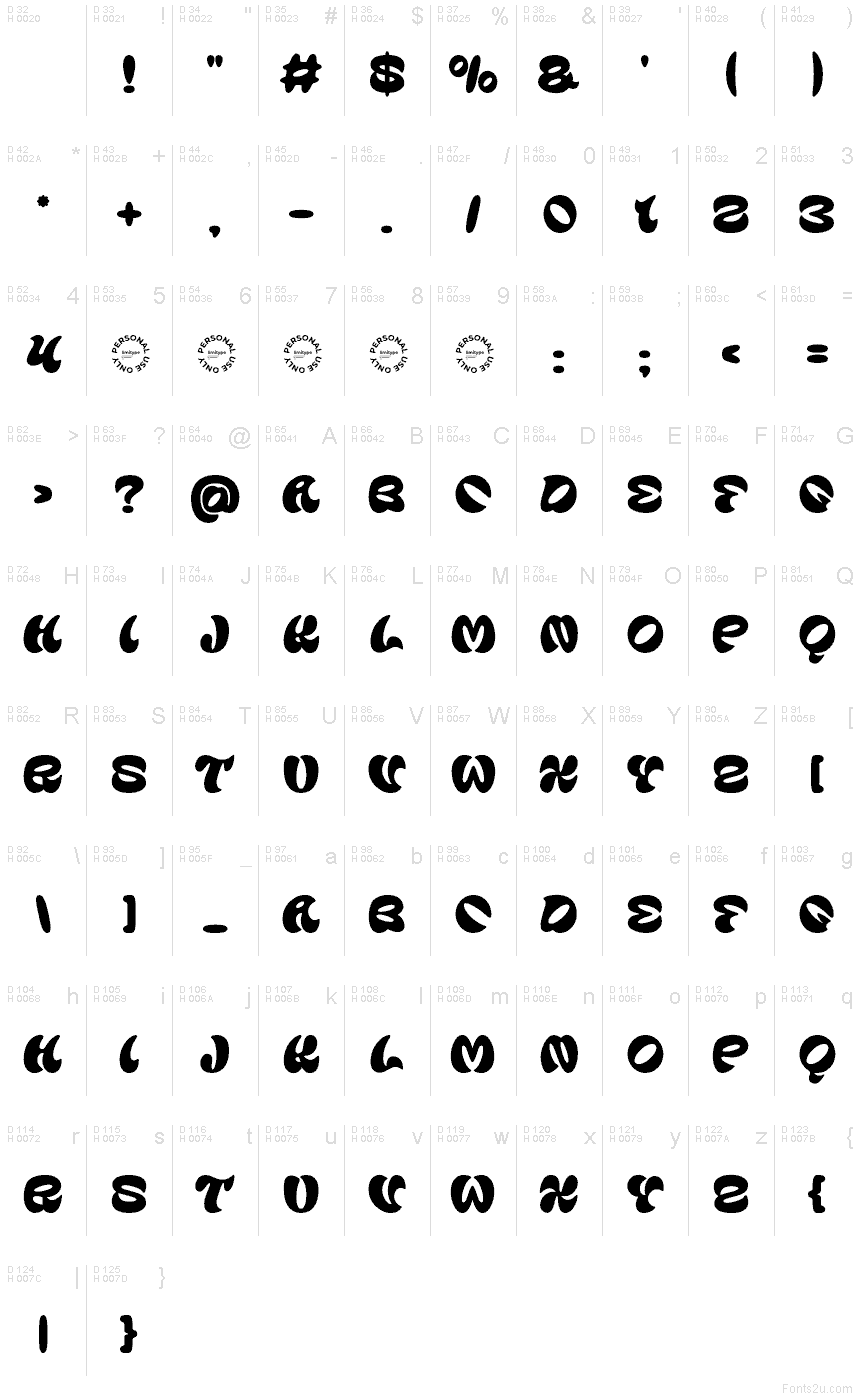
Flowtica Demo
Flowtica font by Furqan SUdirman is a free bold groovy display font. It stands out with syrupy, ribbon-like strokes that swell and taper as if poured in ink, carving playful pockets of negative space between letters. The rhythm is tight and rolling, so words feel like one continuous wave—retro without being kitsch, expressive without losing legibility at big sizes.
Using Flowtica, headlines and logotypes snap to attention on posters, festival flyers, album art, packaging, apparel graphics, and social banners. The compact flow helps short phrases hit hard; keep it large and give it room to breathe. Pair this free font with a plain, light-weight geometric sans for body copy to let the curves do the talking.